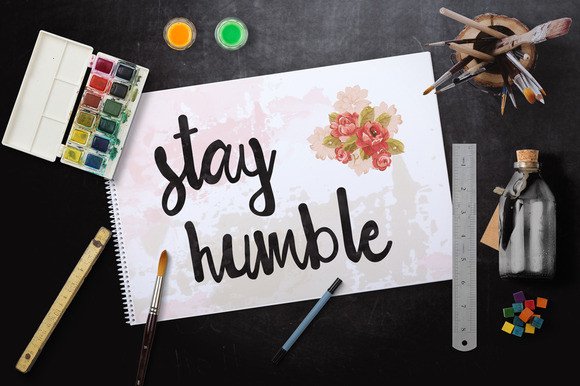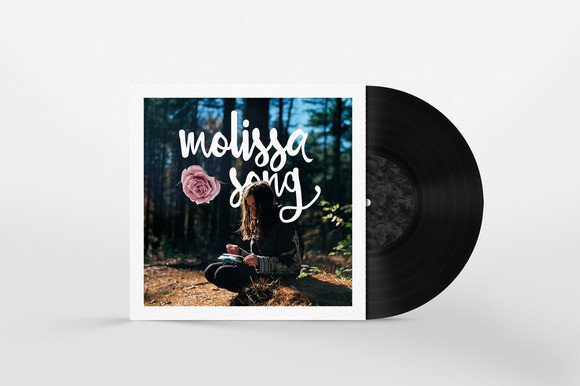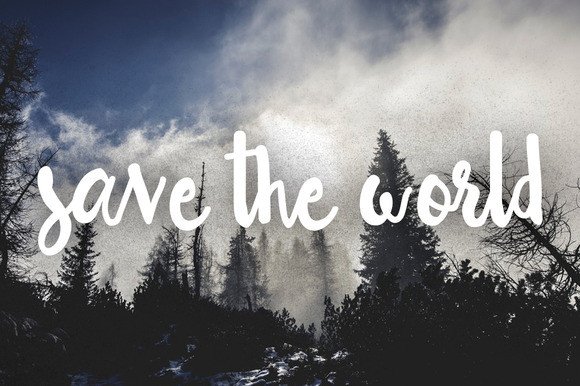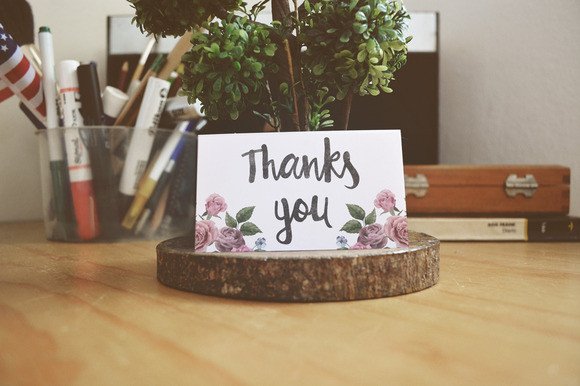
Mellissa Font
About Mellissa Font
Mellissa is a bold and striking script font, perfect for displays and special event design.  This is a script that is ideal for a wide range of designs and projects.